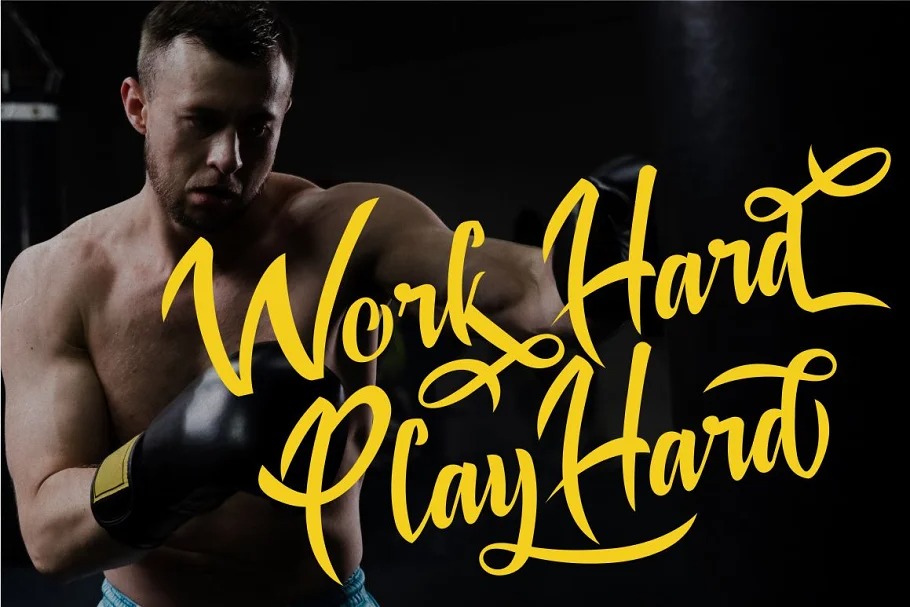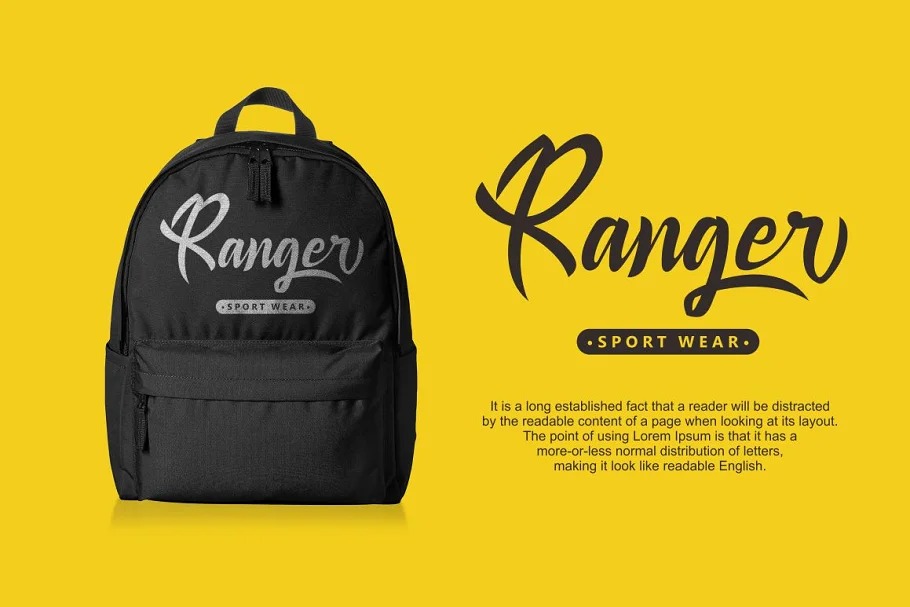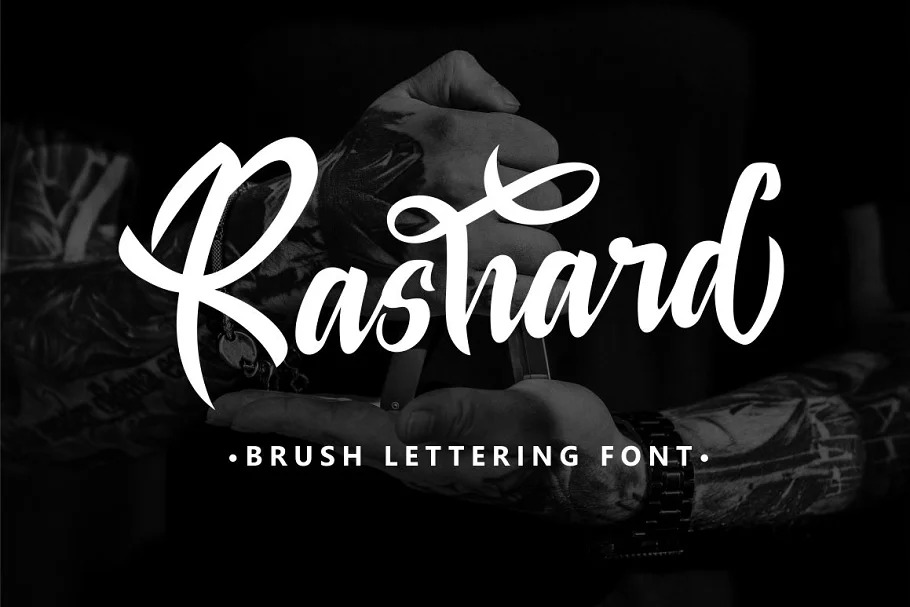
Rashard Script Font
This is a handwritten script typeface from designer PutraCetol Studio. It has an authentic modern calligraphy look making it perfect for branding and digital designs. Rashard is perfect for logo, quote, stationery, wedding designs, social media posts, advertisements, product packaging, product designs, label, photography, watermark, special events or anything.